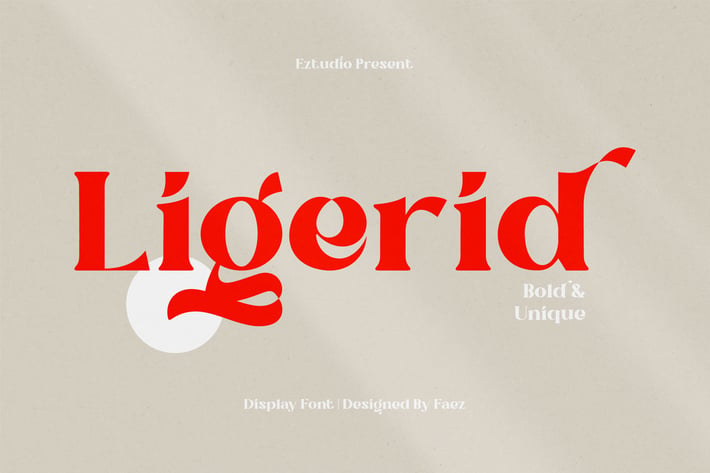
Bold And Unique Font - Ligerid
Ligerid is a new fresh & modern display serif, this font includes uppercase letters, lowercase letters, numerals, alternatives, ligatures & punctuation. bold & unique look. This font is suitable for designs such as magazines, posters, greeting cards, branding materials, business cards, quotes, posters, and more!
The Ligerid font includes:
Uppercase Letters
Lowercase Letters
Ligatures
Special Characters
Multilingual Glyphs